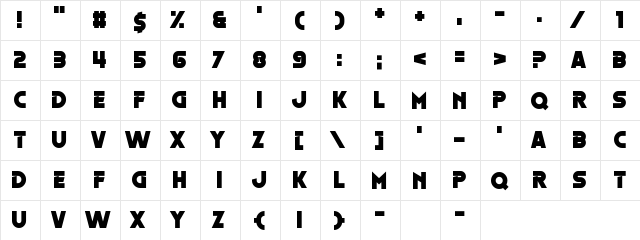
Oestrogen Regular Font Preview
Oestrogen Regular
Oestrogen Regular Font Details
Design Context for Oestrogen Typeface
Oestrogen is a composed and adaptable typeface that performs quietly and consistently across a wide range of design contexts.